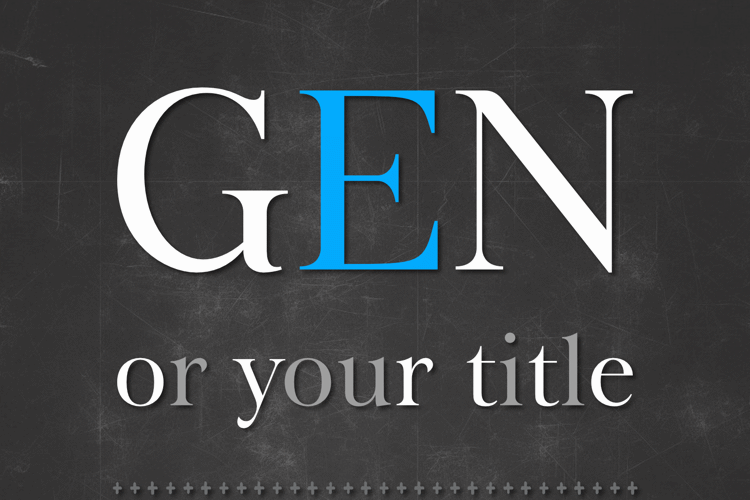
Oblata Display Font
Oblata Display is a high-contrast serif typeface with a subtle classical touch and expressive ligatures. Designed by Astrid Schäfer, it’s ideal for headlines, logos, book covers, and other attention-grabbing text.
The font includes standard Latin characters, ligatures, and a kerning system. Hinting has been intentionally left out to preserve the elegance of the letterforms at display sizes. Tested with FontBakery – all critical checks passed.
Oblata Neue Display in progress.
This is an extended version of the original font, adding new glyphs and improvements.